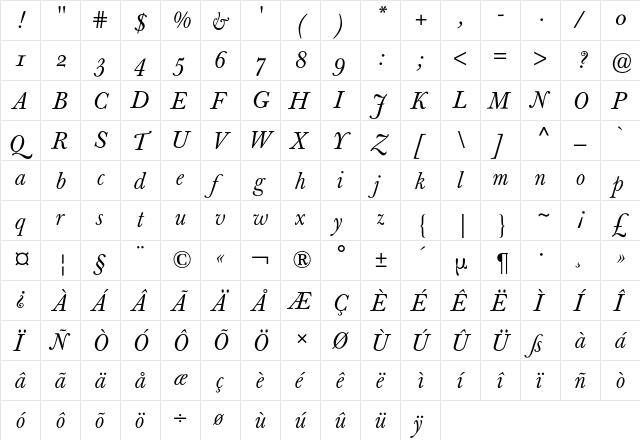
Baskerville Book Expert BQ Regular
Design Context for Baskerville Book Expert BQ Typeface
Baskerville Book Expert BQ takes a measured approach to typography — its balanced proportions and neutral character make it a reliable workhorse for both digital and print work.